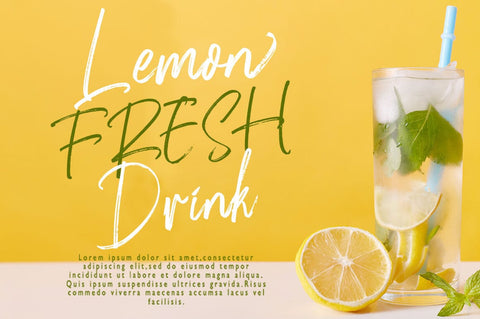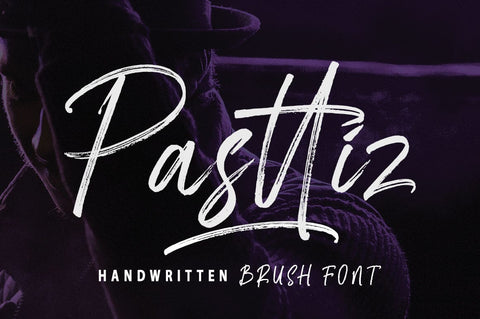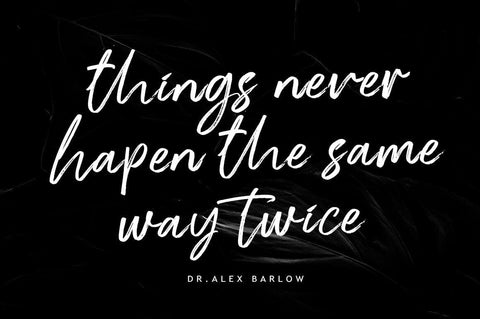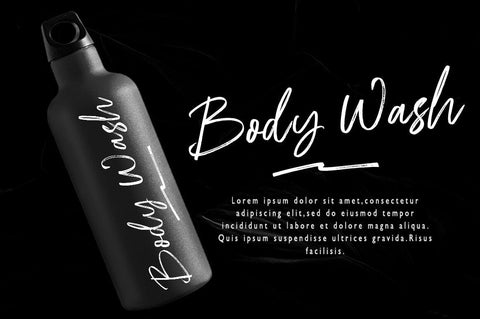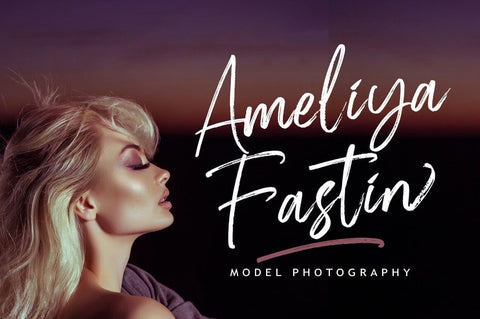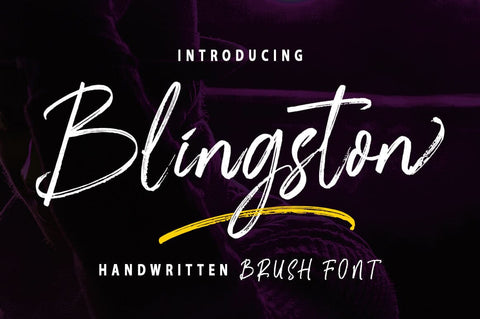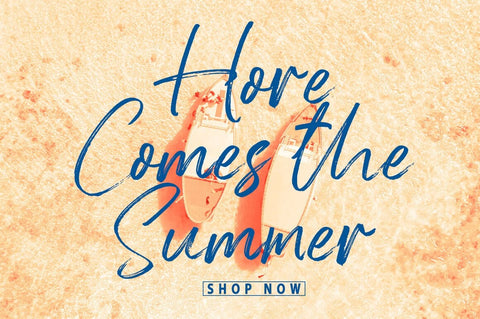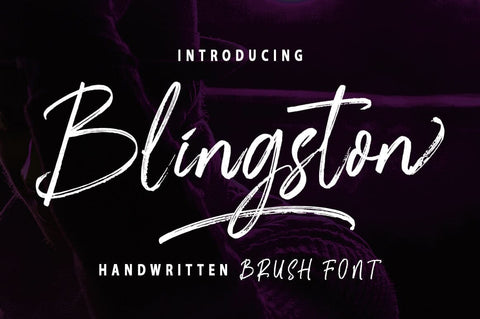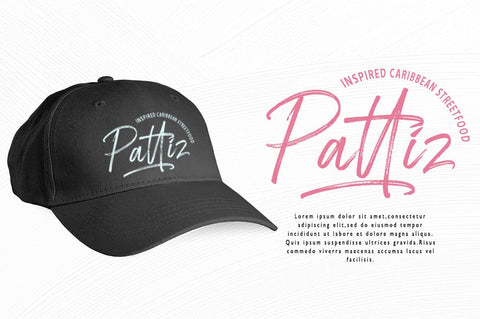
Blingston Brush Font is a textured brush font, contemporary approach to design, handcrafted naturally and underlined. It also has alternatives and fasteners that make your designs more attractive.
Suitable for use in title designs such as clothing, invitations, title books, stationery designs, quotes, branding, logos, greeting cards, t-shirts, packaging designs, posters and more.